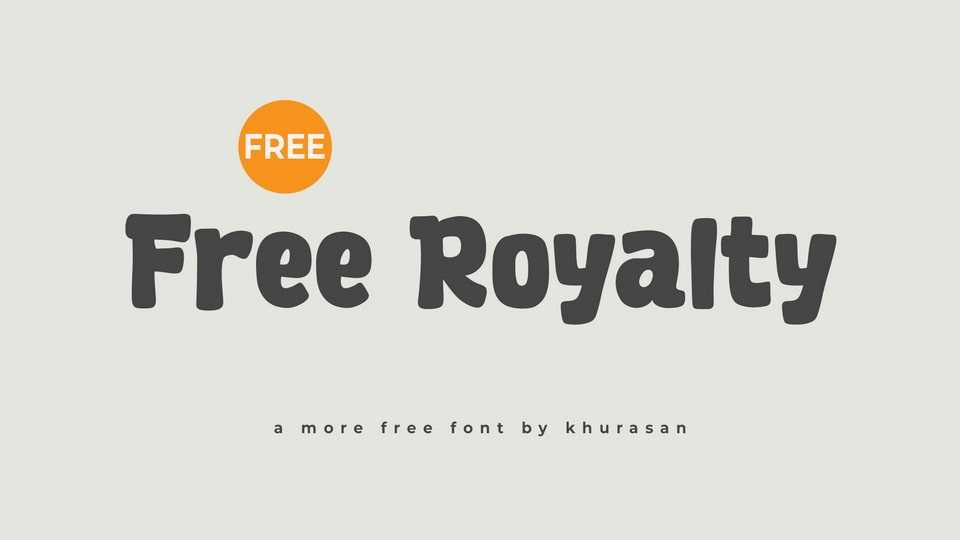
Download Free Royalty font, a playful hand-drawn typeface designed to bring a quirky and fun touch to your projects. Its irregular strokes and whimsical letterforms create a lighthearted and joyful mood.